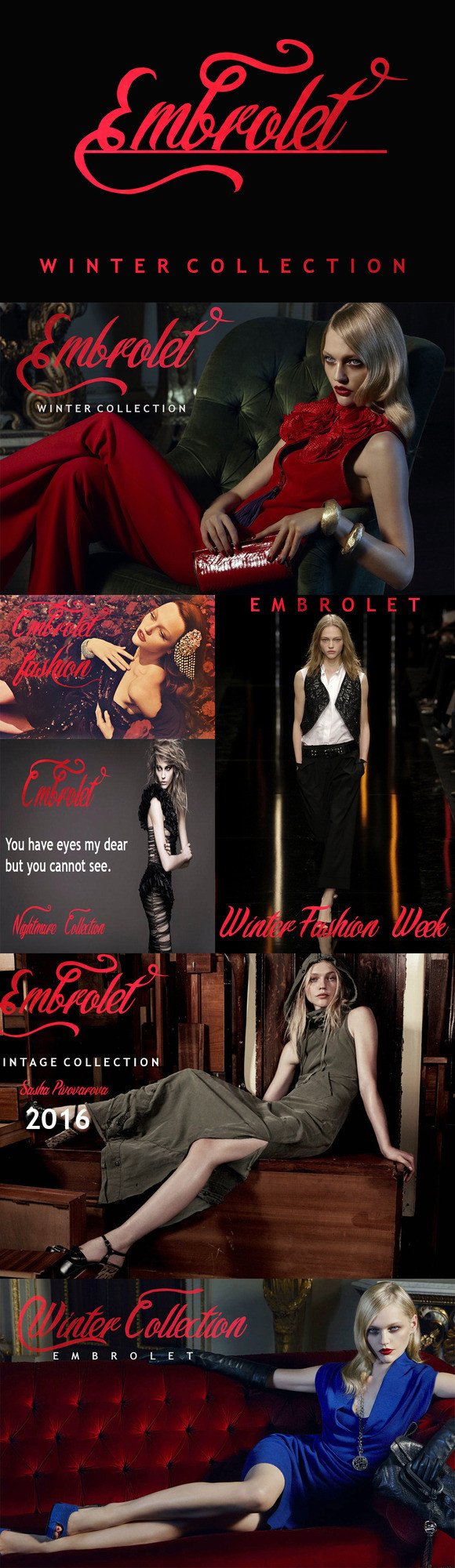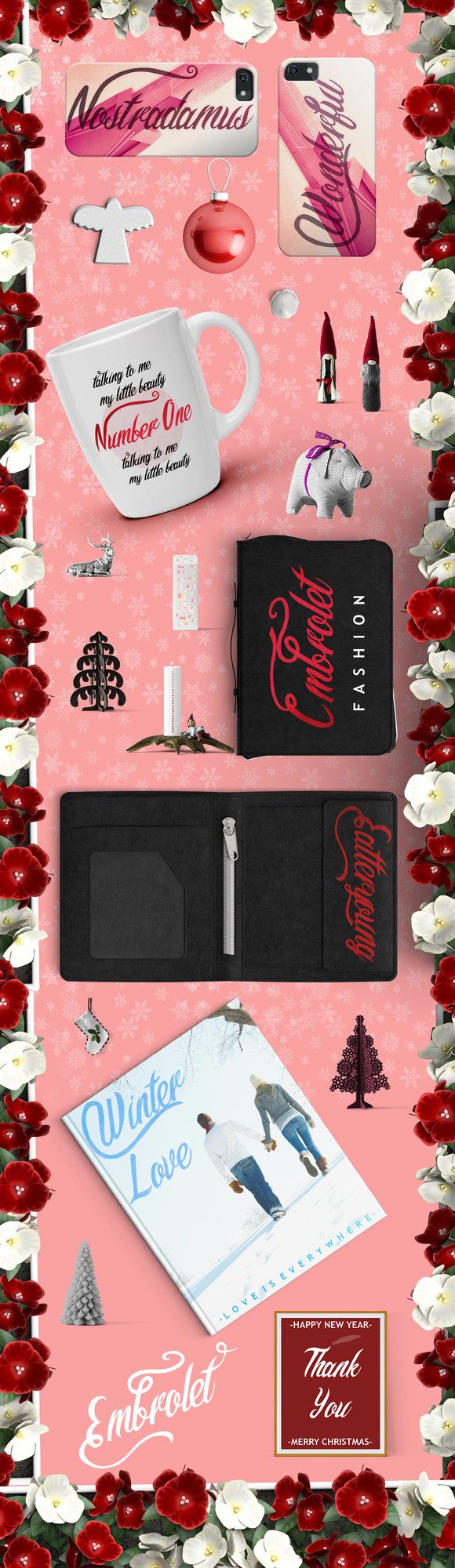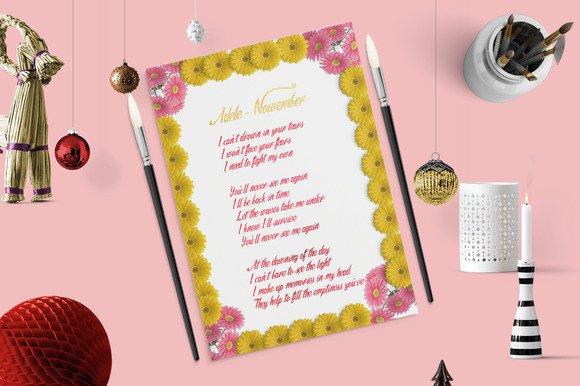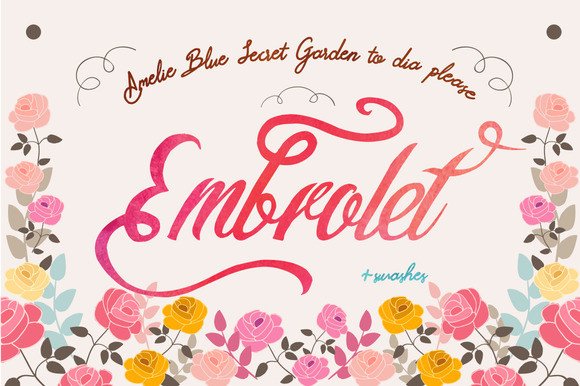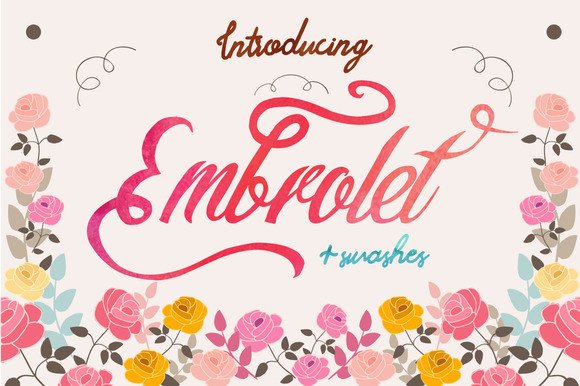
Introducing Embrolet Font: Elevate Your Designs with Elegance
Are you a designer or crafter looking for a sophisticated and versatile typeface to elevate your creative projects? Look no further than Embrolet Font, a stunning and elegant font that can be used for a wide range of applications. From posters and t-shirts to letterheads, logos, labels, invitations, cards, and more, Embrolet Font is the perfect choice for anyone seeking to add a touch of refinement and style to their designs.
What is Embrolet Font?
Embrolet Font is a beautifully crafted typeface that exudes elegance and sophistication. Its unique design makes it an excellent choice for various creative projects, including:
- Posters: Create eye-catching posters that grab attention with Embrolet Font’s stylish and refined look.
- T-shirts: Add a touch of elegance to your t-shirt designs with Embrolet Font’s versatile and comfortable style.
- Letterheads: Elevate your business correspondence with Embrolet Font’s professional and polished appearance.
- Logos: Create a lasting impression with Embrolet Font’s unique and memorable design.
- Labels: Add a touch of sophistication to your product labels with Embrolet Font’s elegant and refined style.
- Invitations: Create beautiful and stylish invitations for special occasions with Embrolet Font’s luxurious look.
- Cards: Design stunning greeting cards, birthday cards, and more with Embrolet Font’s elegant and refined style.
Key Features of Embrolet Font
So, what makes Embrolet Font so special? Here are some of its key features:
- Elegant Design: Embrolet Font boasts a stylish and refined design that adds a touch of sophistication to any project.
- Versatile: Embrolet Font can be used for a wide range of applications, from posters and t-shirts to letterheads and logos.
- Easy to Read: Embrolet Font is designed to be easy to read, making it perfect for body text and headlines.
- Scalable: Embrolet Font is highly scalable, ensuring that it looks great in any size or resolution.
Why Choose Embrolet Font?
With so many typefaces available, why choose Embrolet Font? Here are just a few reasons:
- Unique Design: Embrolet Font’s unique design sets it apart from other typefaces, making it perfect for designers and crafters looking for something special.
- Time-Saving: With Embrolet Font, you can create stunning designs in no time, saving you time and effort.
Tips for Using Embrolet Font
To get the most out of Embrolet Font, here are some tips:
- Experiment with Sizes: Embrolet Font looks great in various sizes, so don’t be afraid to experiment and find the perfect size for your project.
- Pair with Other Fonts: Embrolet Font pairs well with other fonts, so try combining it with other typefaces to create a unique look.
- Use for Headlines and Body Text: Embrolet Font is perfect for both headlines and body text, making it a versatile addition to any project.
In conclusion, Embrolet Font is an elegant and versatile typeface that is perfect for designers and crafters looking to elevate their creative projects. With its unique design, ease of use, and affordability, Embrolet Font is an excellent choice for anyone seeking to add a touch of sophistication and style to their designs. Whether you’re creating posters, t-shirts, letterheads, logos, labels, invitations, cards, or more, Embrolet Font is the perfect choice.